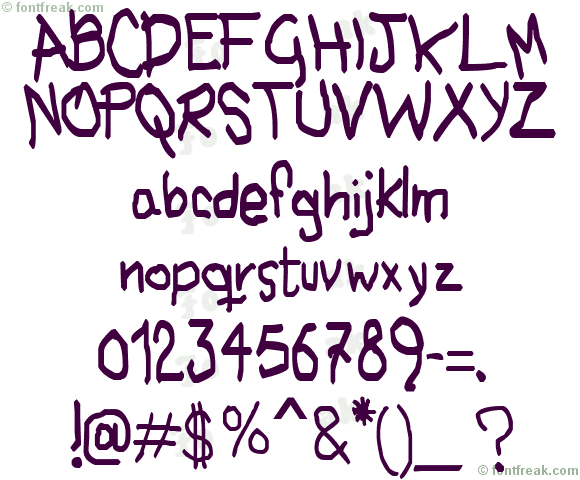
No hubo más Tiempo
The "No hubo más Tiempo" font, designed by Juan Casco in 2009, is a captivating display typeface that embodies a playful yet artistic spirit. This font leans towards a handwritten style, characterized by its organic shapes and slightly irregular strokes, which evoke a sense of spontaneity and creativity. The stroke weight varies, adding a dynamic feel, while the spacing between characters allows for readability without sacrificing its distinctive flair. The decorative elements, such as playful curves and whimsical forms, contribute to its unique personality.
This font is particularly well-suited for a variety of creative applications. It excels in crafting eye-catching wedding invitations, where its charming aesthetic can enhance the romantic theme. Additionally, the "No hubo más Tiempo" font makes a strong impression on movie posters, lending a sense of drama and intrigue that can draw viewers in. It is also ideal for restaurant menus, where its artistic touch can elevate the dining experience by making the menu visually appealing. Content creators will find it perfect for social media graphics, as its playful nature can capture the attention of audiences and enhance engagement.
Targeting graphic designers, small business owners, and content creators, this font serves as an excellent tool for those looking to add a unique twist to their projects. The "No hubo más Tiempo font free download" makes it accessible to anyone seeking to infuse their work with a creative edge.
What truly sets the "No hubo más Tiempo" font apart is its ability to blend fun with functionality. Its distinctive character and versatility make it an excellent choice for a wide range of design projects, allowing users to express their individuality and creativity in every piece of work.